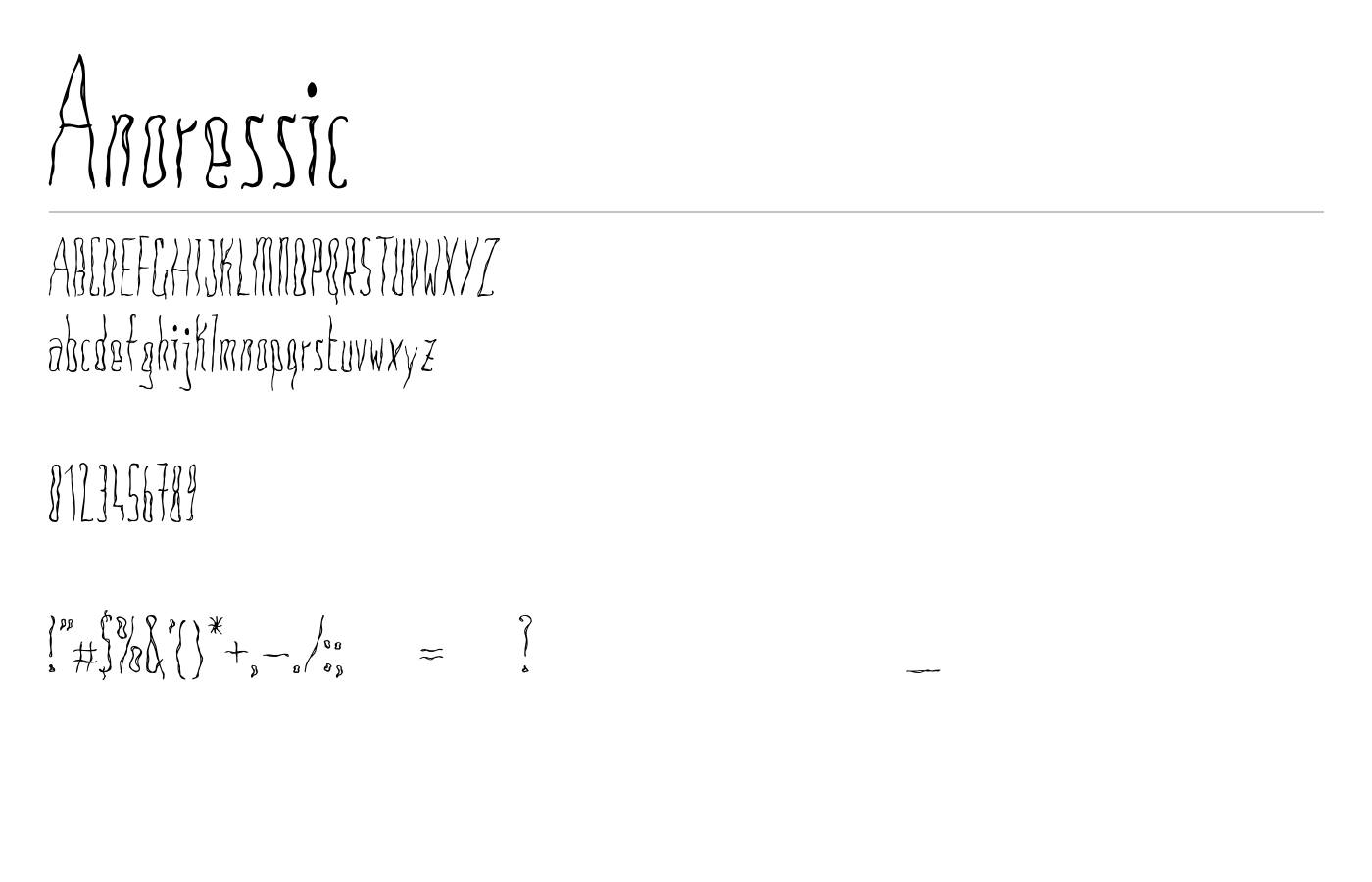
Anoressic is a thin, narrow sans serif font with a distinctive, hand-drawn look that feels eerie and delicate. Its elongated, irregular letterforms and fine strokes create a quirky, spooky vibe, making it ideal for horror-themed designs, Halloween projects, or any creative work seeking a haunting and unconventional style. This font works best in headlines or display use where its unique personality can stand out.
Anoressic Font
About Anoressic Font